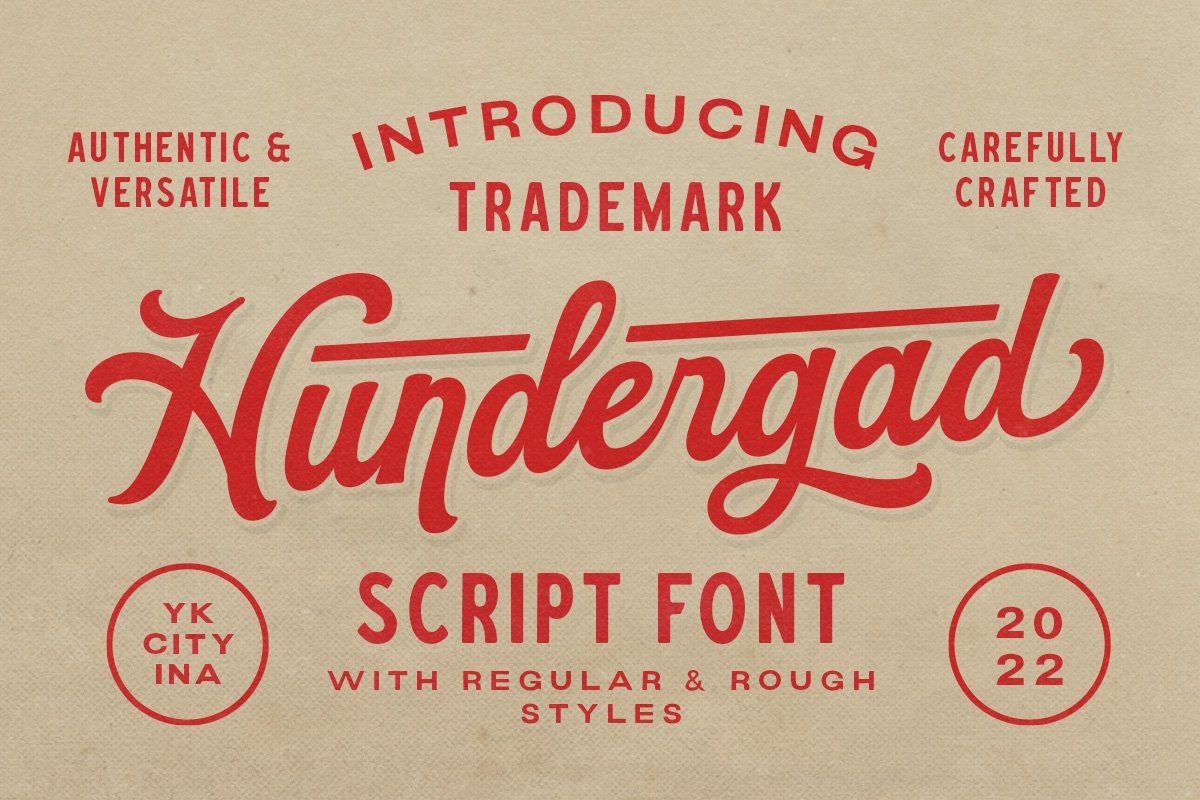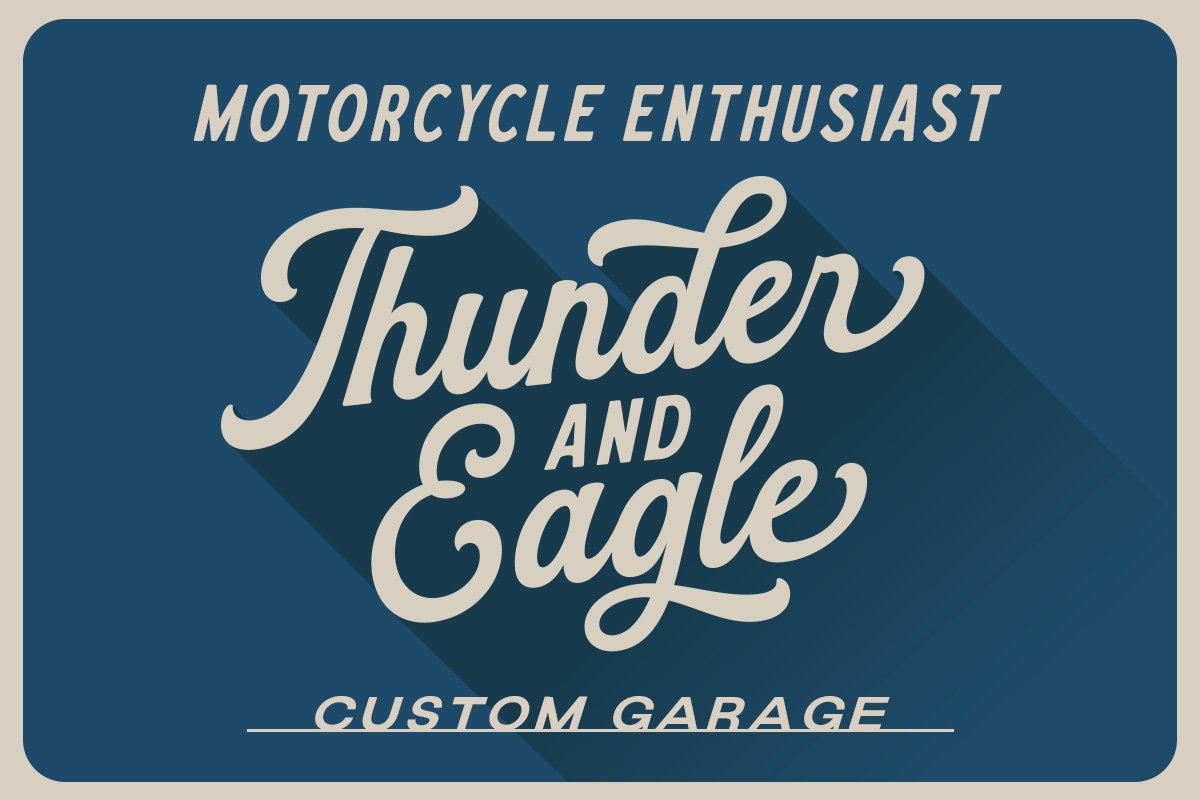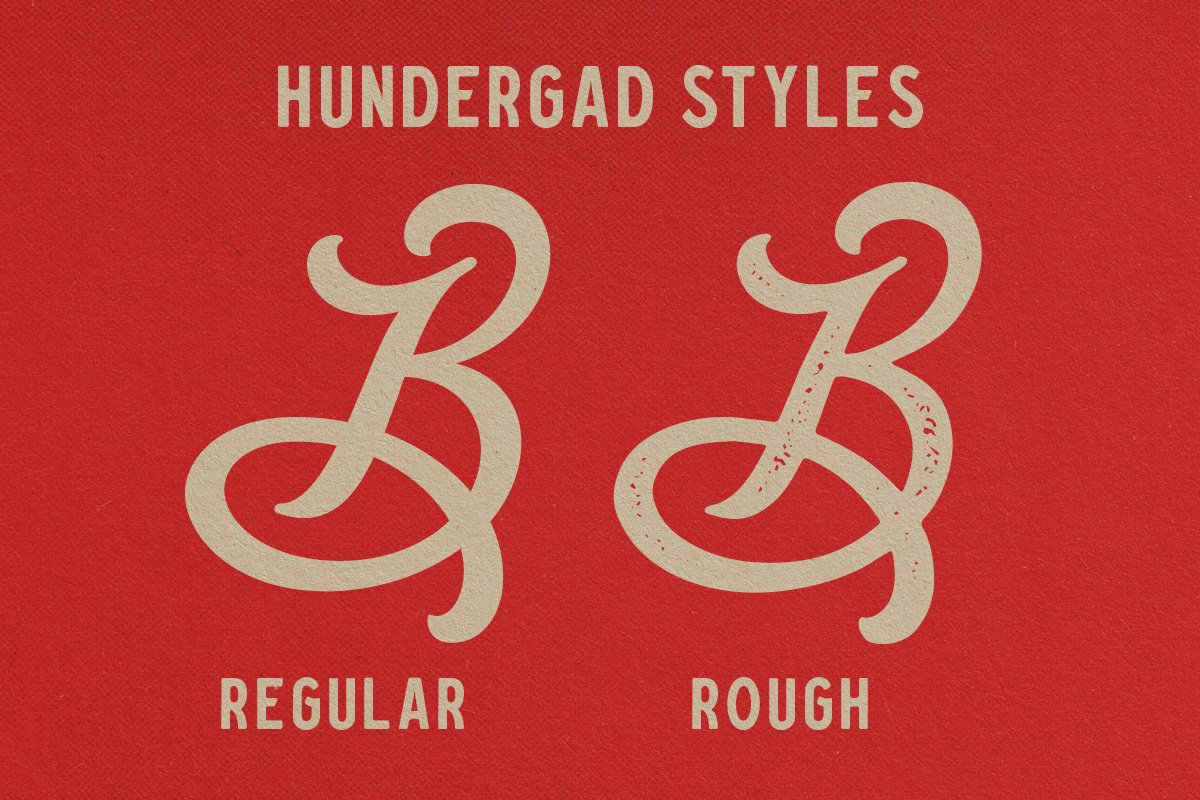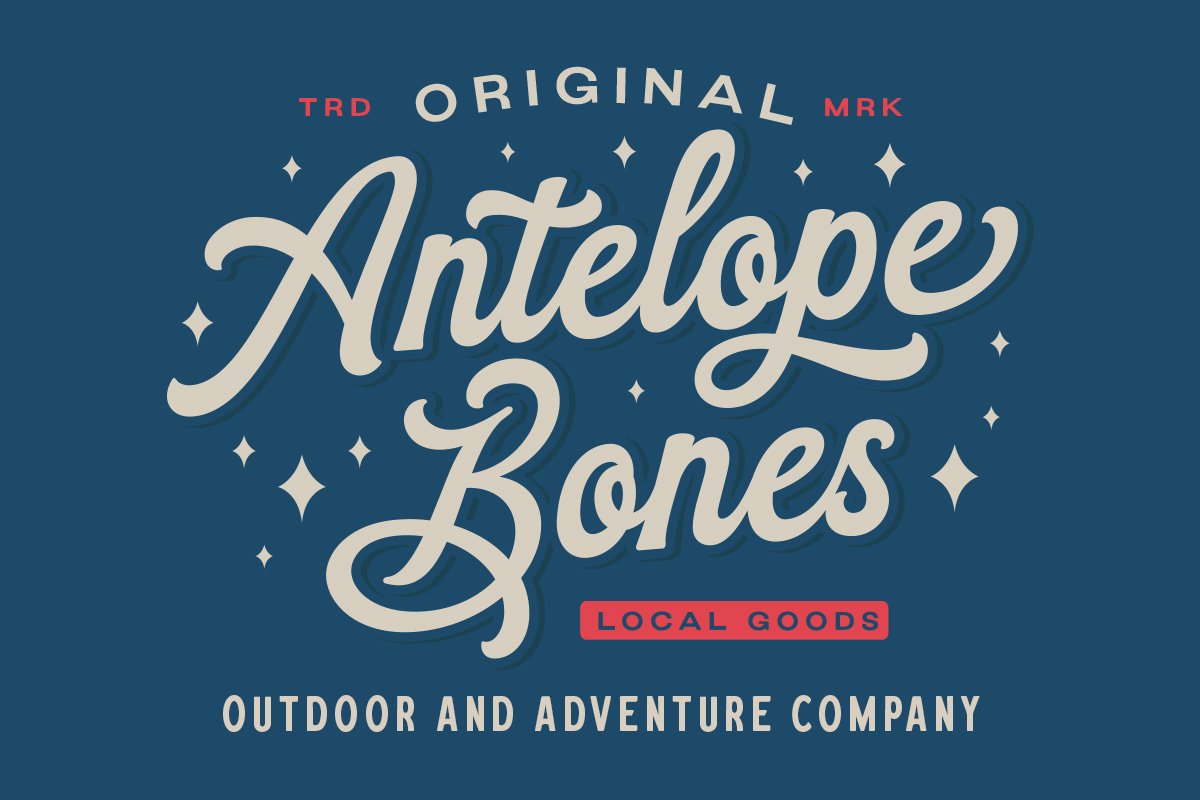
About the Hundergad Script Font
Hundergad is a script with vintage look and feel, This font perfectly made to be applied especially in logo, and the other various formal forms such as invitations, labels, logos, magazines, books, greeting / wedding cards, packaging, fashion, make up, stationery, novels, labels or any type of advertising purpose, Features :regular & roughuppercase & lowercasenumbers and punctuationmultilingualligaturesalternatesswashesPUA encodedWe highly recommend using a program that supports OpenType features and Glyphs panels like many of Adobe apps and Corel Draw, so you can see and access all Glyph variations